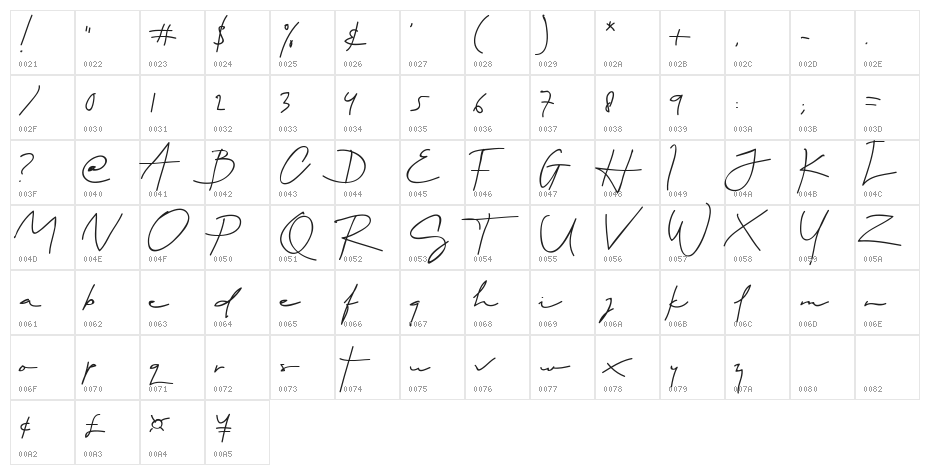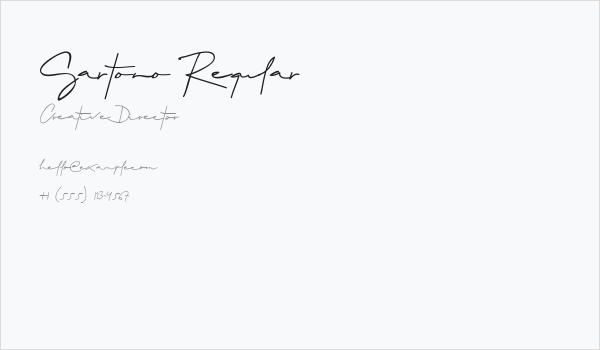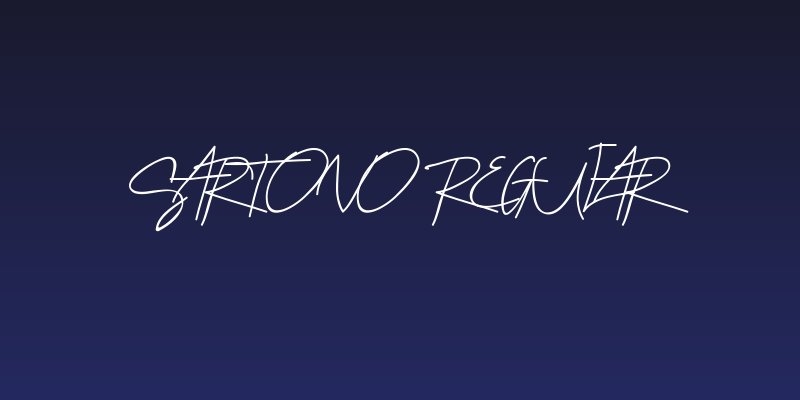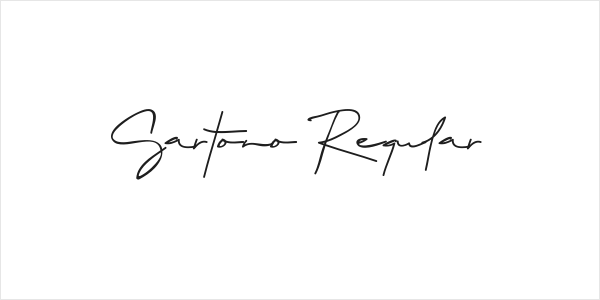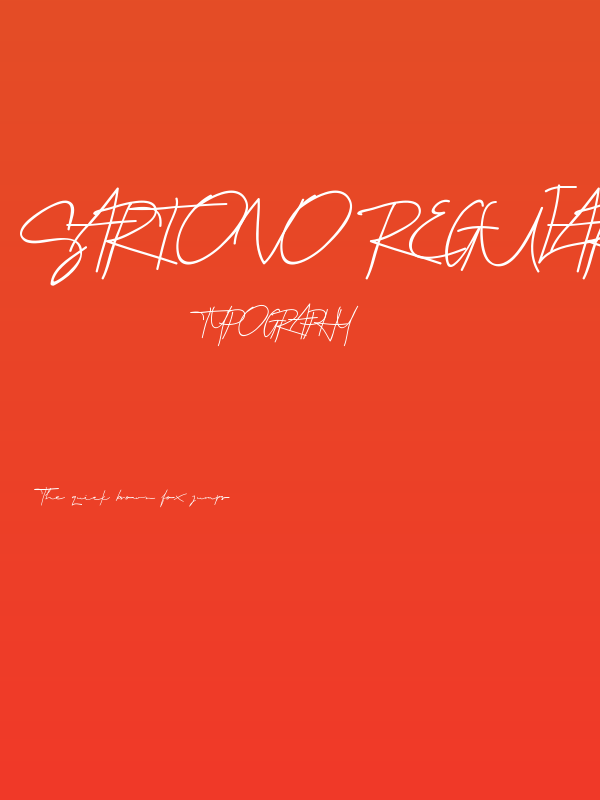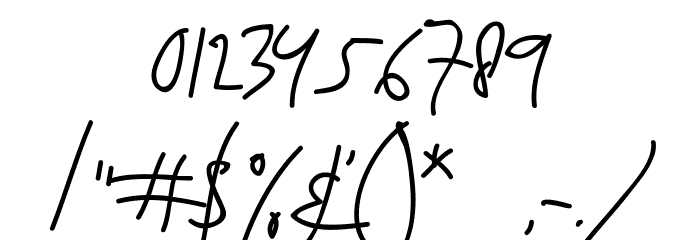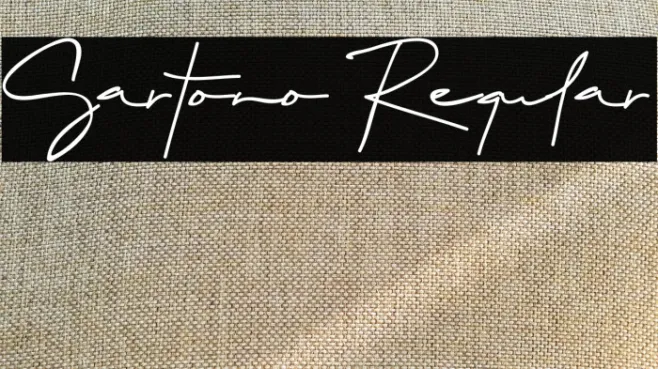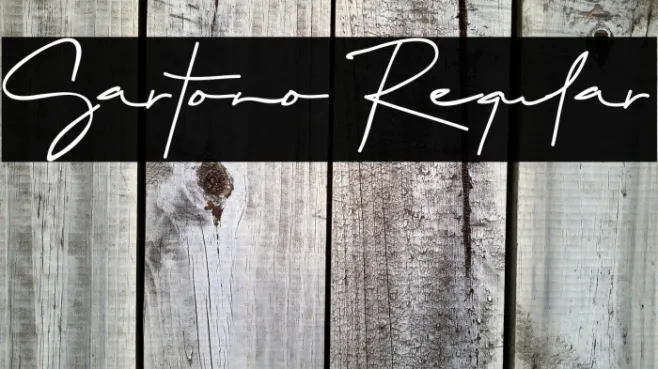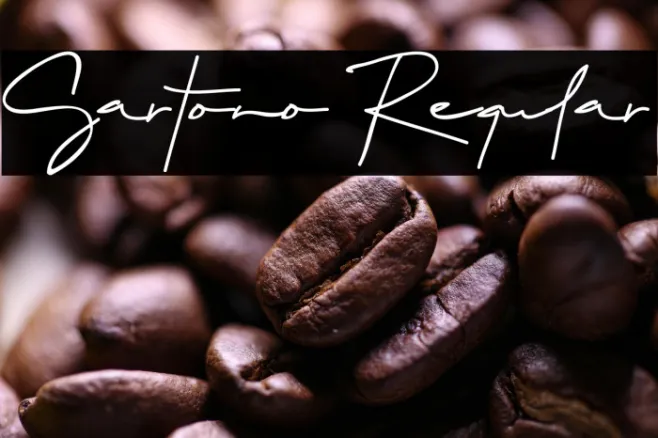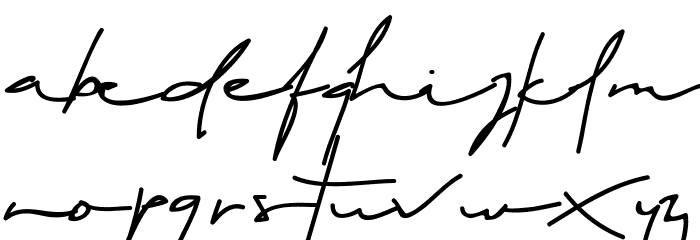
Sartono Regular Font
Sartono Regular Description
This font features a dynamic and expressive handwritten style, characterized by its fluid and spontaneous strokes. The letters are interconnected with a natural flow, giving it a personal and artistic touch. The uppercase letters are bold and prominent, while the lowercase letters maintain a consistent rhythm. Numbers and special characters follow the same energetic style, making the font versatile for creative projects. The overall appearance is casual yet sophisticated, suitable for adding a personal flair to any design.
| Overall Style | Modern, Artistic |
| Use Case | Logos, Invitations, Creative posters |
| Proposed Projects | Ideal for personal branding, artistic projects, invitations, and creative posters. |